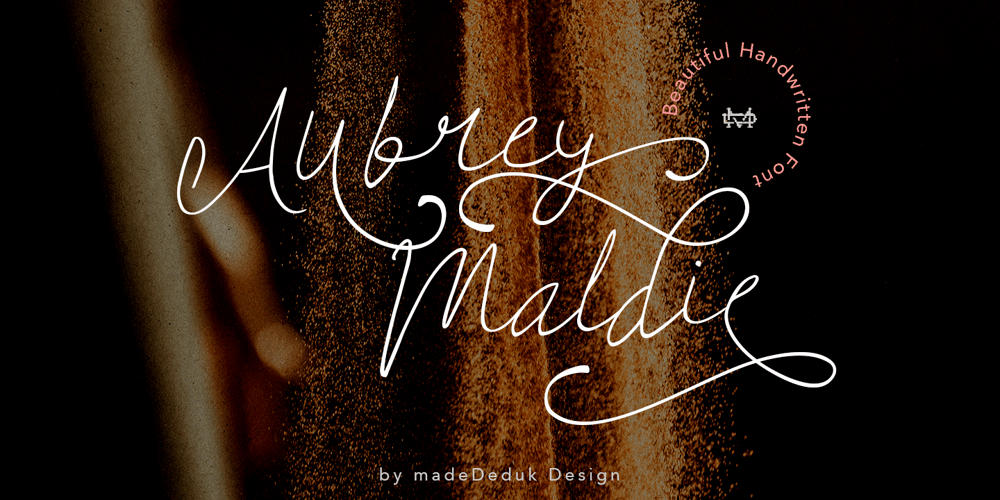
Aubrey Maldie Font Family was designed by madededuk and published by madeDeduk. Aubrey Maldie contains 1 styles and family package options. Really excited to introduce Aubrey Maddie is a realistic handwritten font to give an incredible impression for all your project design come with more than 75 ligatures and 100 Alternative to make everything look realistic handmade handwritten.Included: Uppercase & Lowercase Number & Symbol International Glyphs Multilingual Support Ligature Alternative Hope you enjoy it.